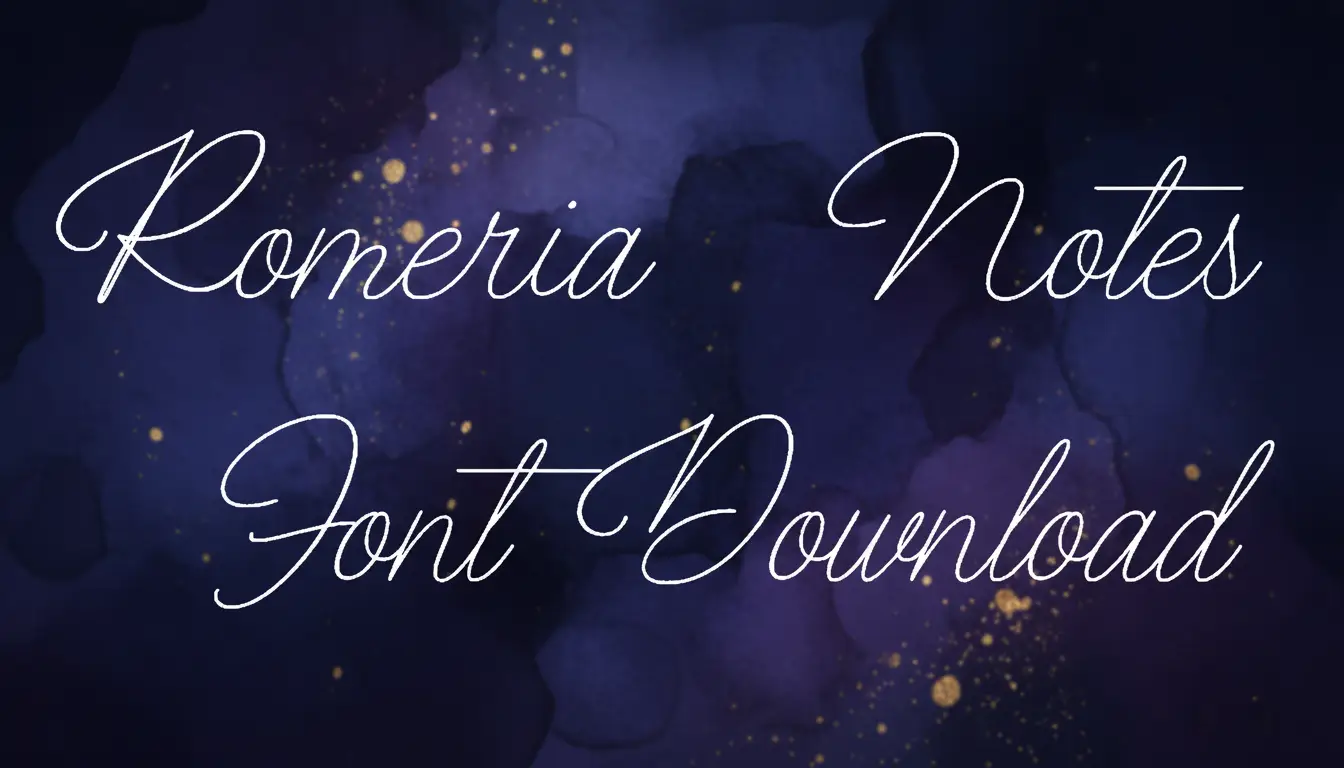
Romeria Notes Font
Romeria Notes is a script font designed by Mans Greback and published by Mans Greback AB. It has that hand-lettered, flowing feel people look for when regular type seems too stiff. You can download it for free and test it with your own words in the preview above.
What You Can Type With Romeria Notes
You get every letter from A to Z in both cases and all the numbers from 0 to 9, which means Romeria Notes can handle full sentences, dates and prices. Everyday marks like &, !, ? and @ are there too. Thanks to its accented letters, it also works for Spanish, French, German, Portuguese and Italian, not just English.
Where Romeria Notes Works Best
Designers usually reach for fonts like Romeria Notes when they're making wedding invitations, logos and signature-style headings. Script fonts read best in short bursts, so keep it to names, titles and one-line quotes. Skip all caps: script capitals are drawn to start a word, not to fill one.
Does Romeria Notes support accented letters?
Yes. Romeria Notes includes the accented letters needed for Spanish, French, German, Portuguese and Italian, so it works for more than just English.